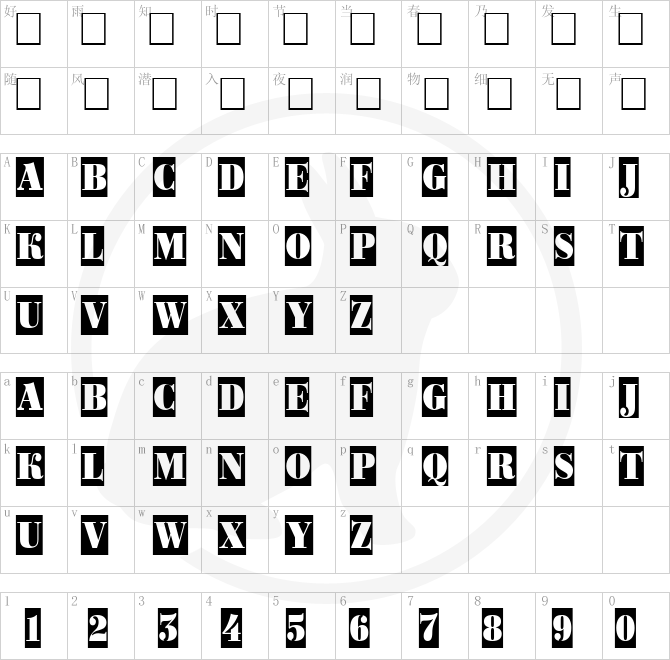
- Font Name:a_BodoniOrtoNrTtlCm
- Subfamily:a_BodoniOrtoNrTtlCm
- Full Name:a_BodoniOrtoNrTtlCm
- PostScript:a_BodoniOrtoNrTtlCm
a_BodoniOrtoNrTtlCm.ttf is a very beautiful artistic font, a_BodoniOrtoNrTtlCm.ttf is widely used in the design and printing of various books and pictures,a_BodoniOrtoNrTtlCm.ttf has a strong visual impact,a_BodoniOrtoNrTtlCm.ttf is a commonly used font in newspapers, magazines and books, and is used in posters, e-commerce Poster design, store design, logo design, font design and other fields.a_BodoniOrtoNrTtlCm.